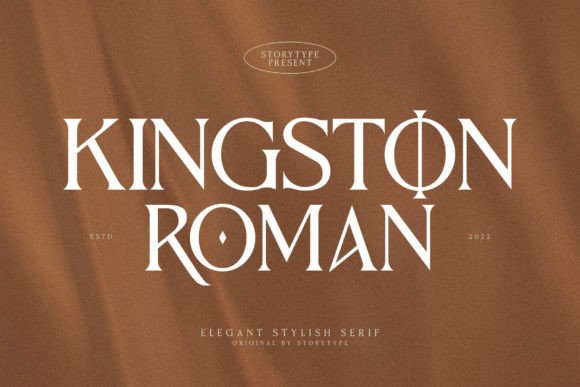
**Kingston Roman: A Timeless Serif That Radiates Sophistication & Finesse**
In a world where digital aesthetics reign supreme, Kingston Roman emerges as a typographic masterpiece, a serif font exudng timeless elegance and unparalleled charm. Its meticulously crafted curves and refined details elevate any design, leaving a lasting impression on your audience.
Indulge in the exquisite beauty of Kingston Roman, a font family that captivates with its modern yet classic allure. Designed with a unique flair and a touch of sophistication, this font transcends the ordinary, transforming your creative visions into masterpieces.
Harness the enchanting versatility of Kingston Roman, seamlessly adapting to a myriad of design endeavors. Whether you seek to craft an elegant logo that exudes luxury or desire to add a touch of grandeur to your book or movie title design, Kingston Roman rises to the occasion, delivering exceptional results.
Unleash your creativity with Kingston Roman, the perfect companion for fashion brands, magazines, and clothing designs. Its ability to evoke emotions and convey messages with impeccable style makes it an ideal choice for fashion-forward designers seeking to make a statement.
Experience the transformative power of typography with Kingston Roman, a font that breathes life into your design concepts. Its versatility knows no bounds, allowing you to create stunning lettering, thought-provoking quotes, and captivating headlines that resonate with your audience.